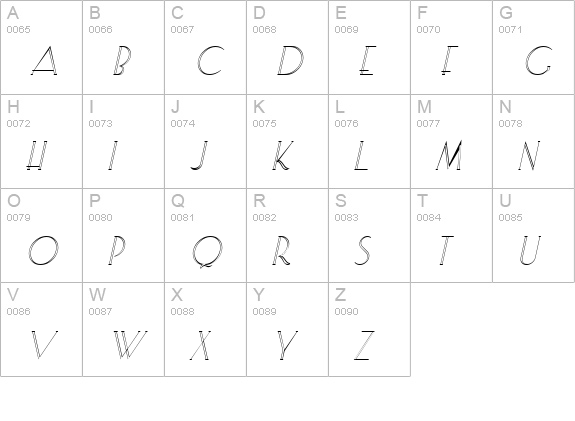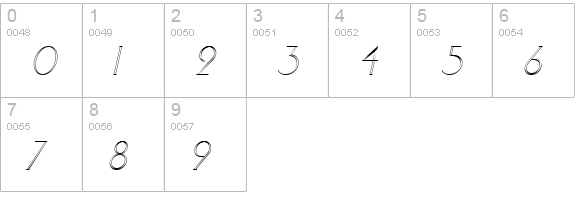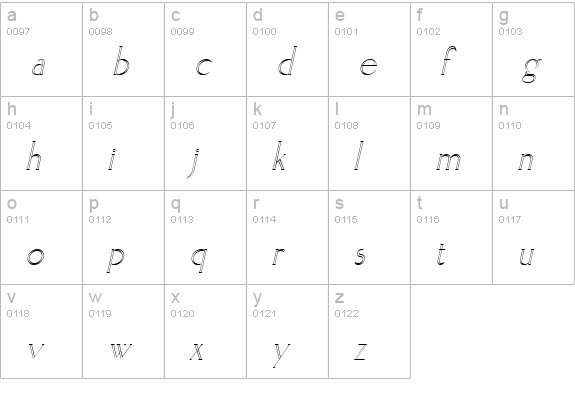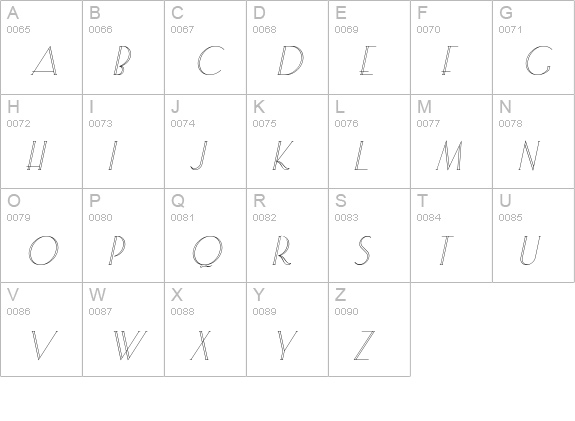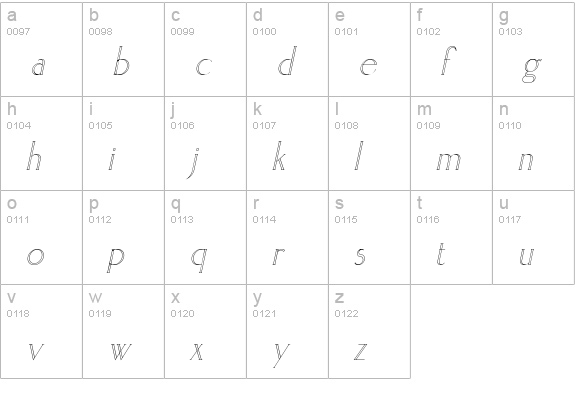
ElisiaOpenface Italic Font Details
ElisiaOpenface Italic is a distinctive, italic variant in the ElisiaOpenface typeface family \xE2\x80\x94 well suited to design and typography projects.
ElisiaOpenface Italic is a beautifully crafted font that exudes elegance and sophistication. Its slanted design adds a touch of flair to any project, making it perfect for adding a stylish touch to invitations, posters, and more. With its graceful curves and unique charm, ElisiaOpenface Italic is sure to make a statement. The best part? ElisiaOpenface Italic is available for free download at FontsMarket.com, making it accessible to all designers and creatives looking to elevate their work with a touch of finesse. So go ahead and enhance your designs with this exquisite font today!